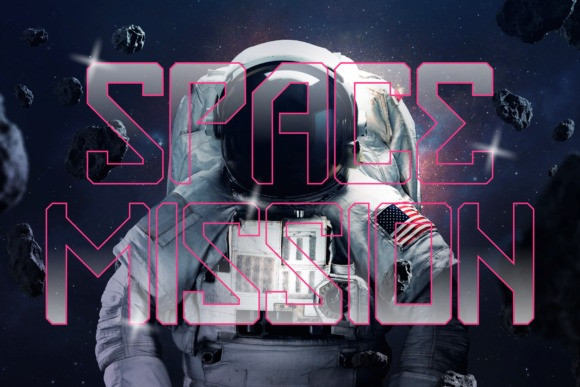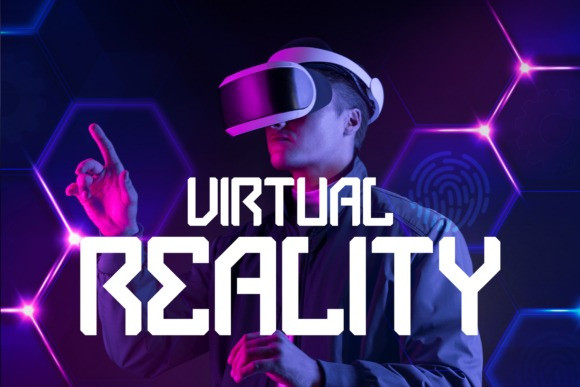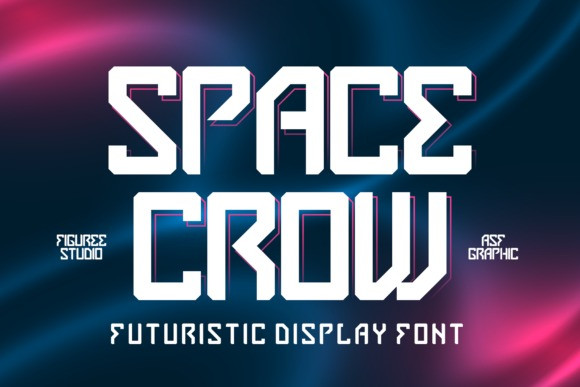
Space Crow Font
Space Crow Display Font is a cool, bold, robotic display font. This font is ideal for writing web designs, business cards, or pretty much anything else that requires a dynamic touch.